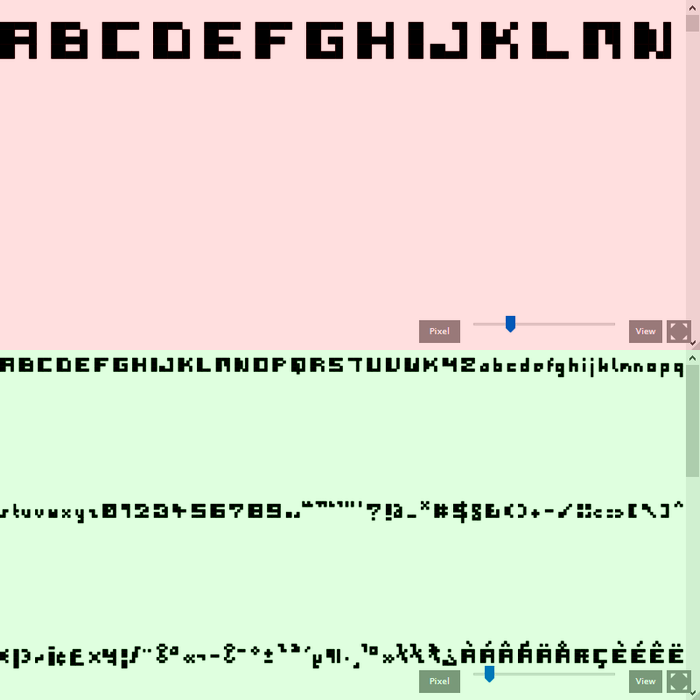
Ah, I can see the 3 x-height lowercase only after I moved the slider… Perhaps you can fix the line height to someting really mini (automatically would be fine too, in the FontStructor).
Great deal of Latin languages at this scale, cool!
I don't know if the issue was there since v1 (2015-05-28), but here is how we first see your glyphs, before and after scrolling down the rendition in the View frame… To me, it is obvious the lines would need to be almost touching together (local browser bug excepted).